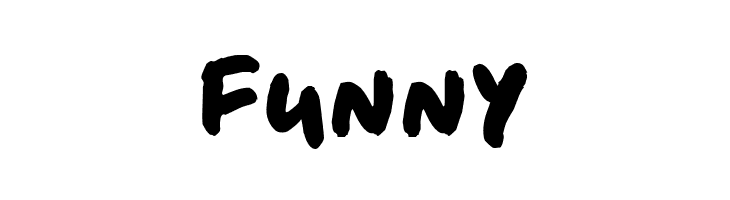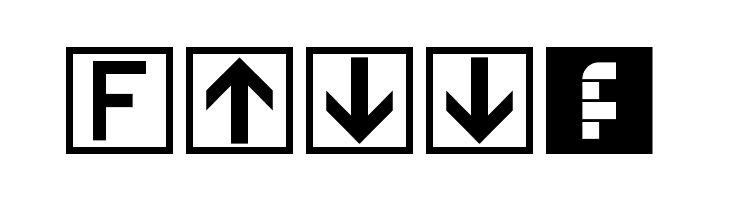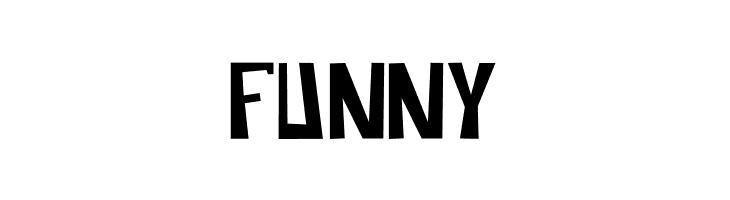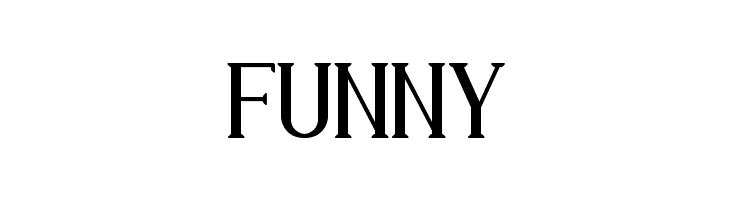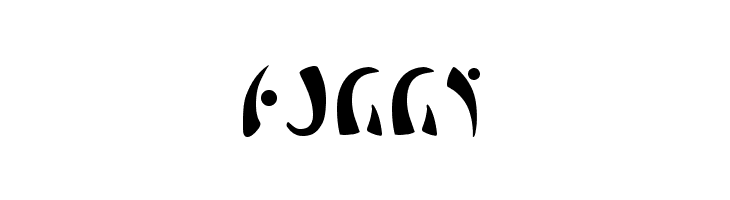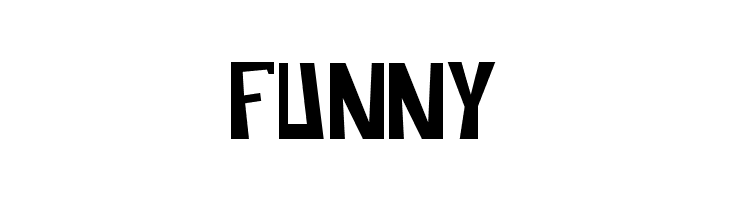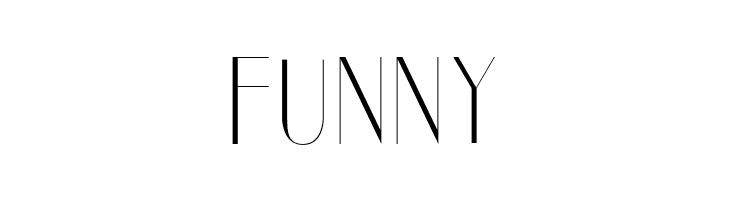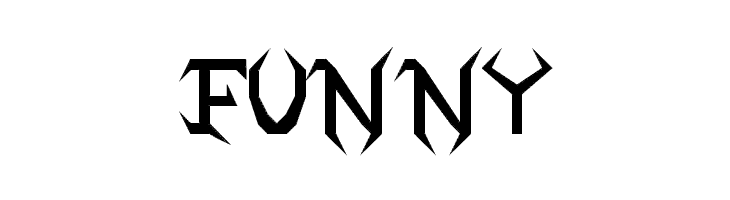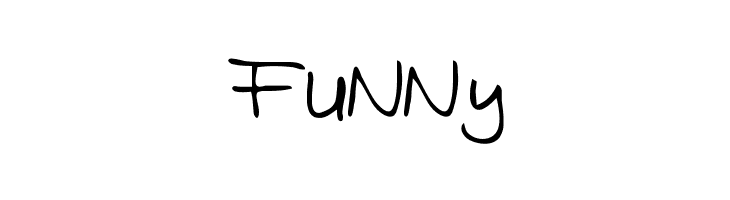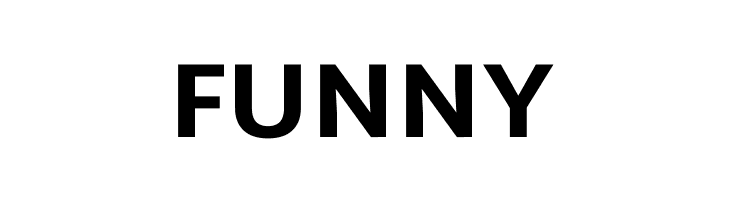
• Manyeto
A modern, geometric font with a sleek and compact design.
• ManyGifts
A bold, playful font with a hand-drawn, artistic style.
• ManyLines
A geometric, abstract font with intersecting lines and sharp angles.
• ManyTimes
A bold, textured font with a hand-drawn, artistic style.
• MapperKit Regular
A bold, geometric symbol font with a modern, playful aesthetic.
• Mara's Eye
A bold, abstract font with sweeping curves and circular motifs, ideal for artistic projects.
• Marbre
A modern, high-contrast font with tall, slender characters.
• Marbre Sans
A modern, high-contrast sans-serif font with elegant, slender characters.
• MarbreSans
A sleek, modern font with high contrast and elegant, slender characters.
• MarbreSans-Bold
A high-contrast, elegant font with elongated, narrow characters.
• Margarita in August
A lively, hand-drawn font with bold, sweeping strokes and dynamic curves.
• Margot Bold
A playful, bold font with rounded, hand-drawn characters.
• Margot Xtrafette
A playful, bold font with rounded, bubbly characters.
• Marijuana
A bold, decorative font with intricate marijuana leaf patterns.
• MARINHA
A modern serif font with unique serifs and a touch of elegance.
• Marjan's handwriting
• Marker
A bold, hand-drawn marker-style font with a casual and expressive look.
• Markofontina
A modern serif font with elegant, elongated letterforms and refined serifs.
• Markofontina
• Marlen The Ponderosa
• Martel Sans
A modern sans-serif font with clean lines and excellent readability.
• Martel Sans Black